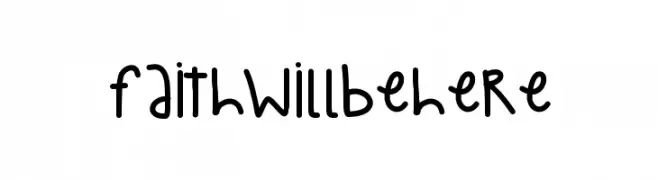
( Brynda1231 Industries )
A pixelated, blocky font with a retro, digital aesthetic.
( Art Designs by Sue )
A whimsical, fairy-themed decorative font with intricate embellishments.
( Des )
A playful handwritten font with rounded, casual characters.
( Dani Foster Herring - dani3d.com/ )
Illustrative font with family-themed drawings as characters.
( Billy Argel - billyargel.com/ )
A bold, cursive font with a flowing, handwritten style.
( Blambot - www.blambot.com )
A bold, textured font with a playful, hand-drawn style.
( Character )
A decorative font with characters designed to resemble intricate feathers.
( Character )
A decorative font with bold letters adorned by intricate feather designs.
( Daniel Plant - www.fontmonster.org )
A playful, bold handwritten font with a lively and dynamic style.
( Dani Foster Herring - dani3d.com/ )
A themed dingbat font with Hanukkah and Jewish festival icons.